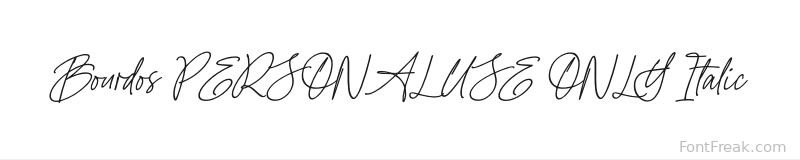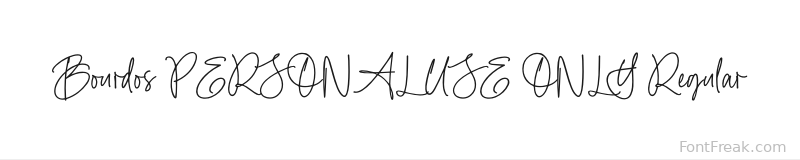
Bourdos PERSONAL USE ONLY Regular
Bourdos PERSONAL USE ONLY Regular by Mans Greback is a captivating handwritten font that exudes a sense of elegance and charm. This script-style typeface features a fluid and organic design, characterized by its playful strokes and whimsical flair. The font boasts a medium stroke weight with slight contrast, allowing for easy readability while maintaining a decorative appeal. The open spacing between letters enhances its legibility, making it suitable for various applications.
This font is ideal for a range of creative projects. Its unique aesthetic makes it perfect for wedding invitations, where its romantic qualities can set a heartfelt tone. Additionally, Bourdos is well-suited for restaurant menus, adding a touch of sophistication and warmth to the dining experience. Graphic designers will find it useful for branding materials—such as logos and product packaging—where a personal touch can help convey the essence of a brand. It's also a great choice for crafting social media graphics, as its distinctive style can capture attention and elevate online content.
The target audience for Bourdos PERSONAL USE ONLY Regular includes graphic designers, small business owners, and content creators looking to add a personal touch to their projects. This font brings a unique character that can resonate with audiences, making it a valuable asset in any designer's toolkit.
What sets Bourdos apart is its ability to blend artistry with functionality. The font's charming style can evoke emotions and create a connection with viewers, making it a standout choice for anyone seeking to enhance their creative projects. For those interested in exploring its charm, Bourdos PERSONAL USE ONLY Regular font free download offers an accessible option to elevate your design work.